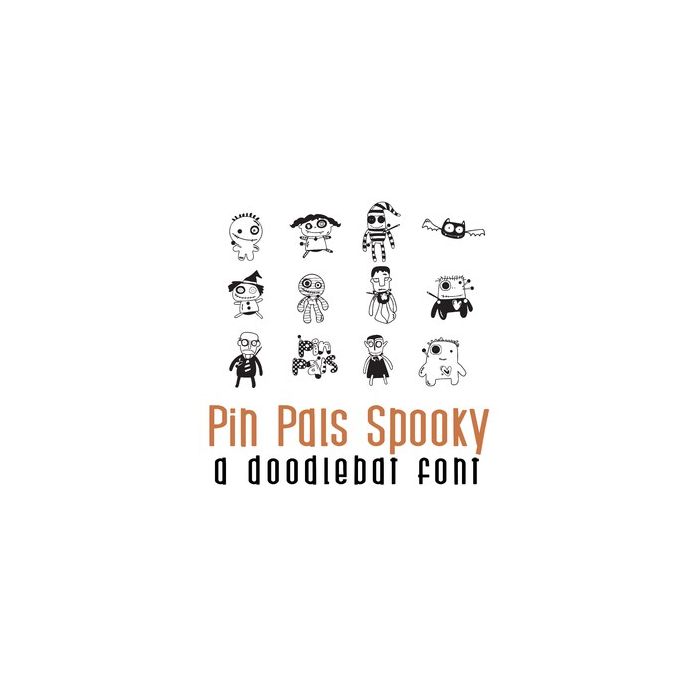
Pin Pals - Spooky Doodlebat Font
This fun doodlebat font features 26 adorably spooky pin cushion animals perfect for cards, crafts, decor, planner stickers, scrapbook pages and more!